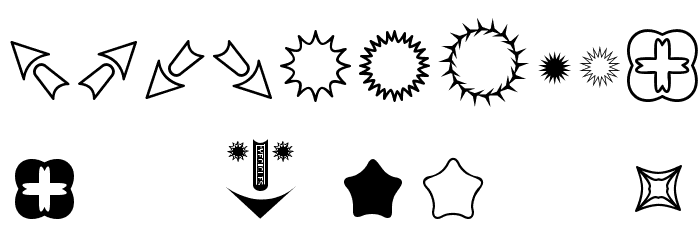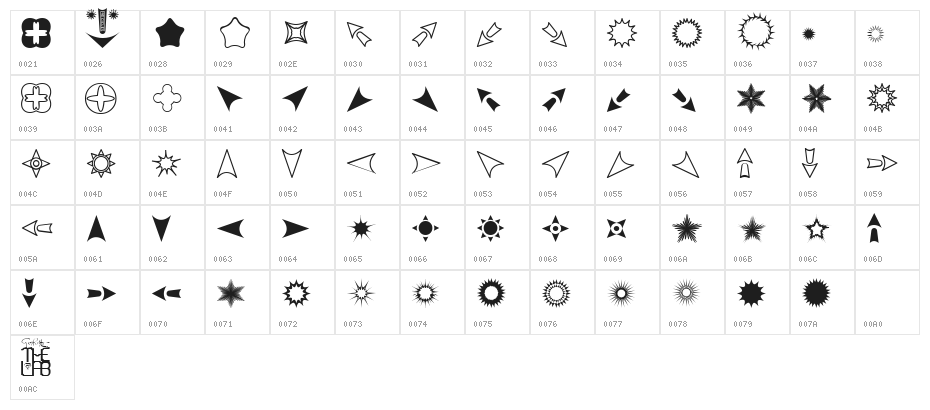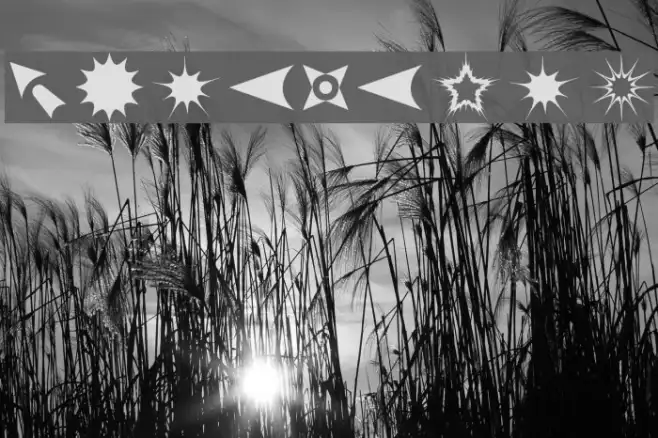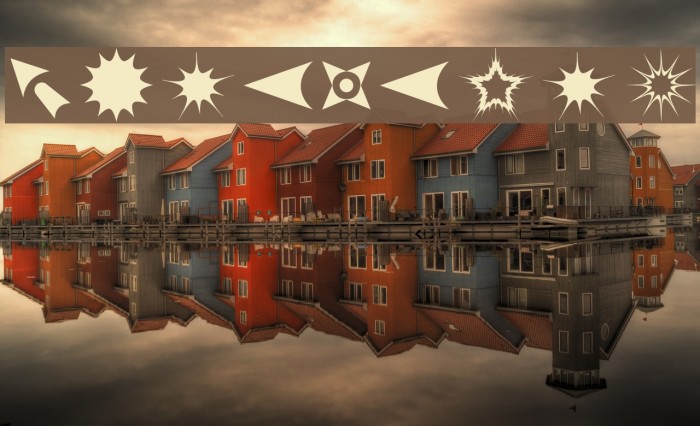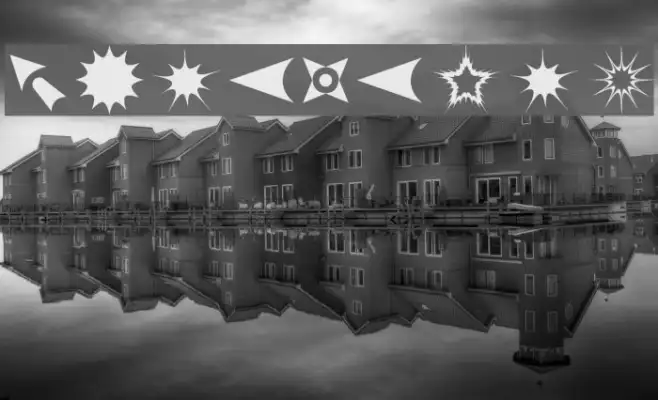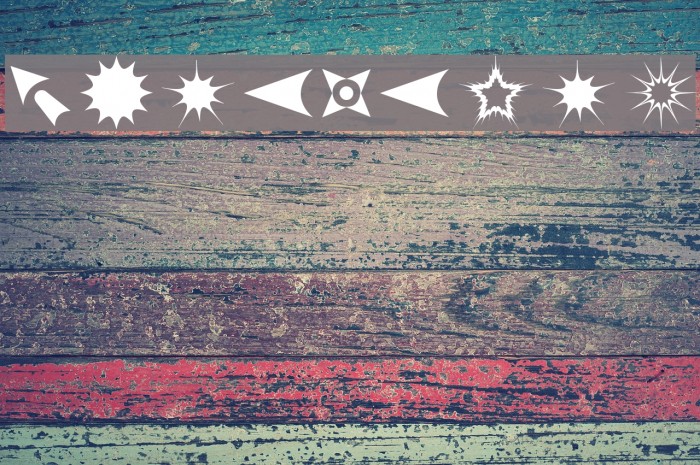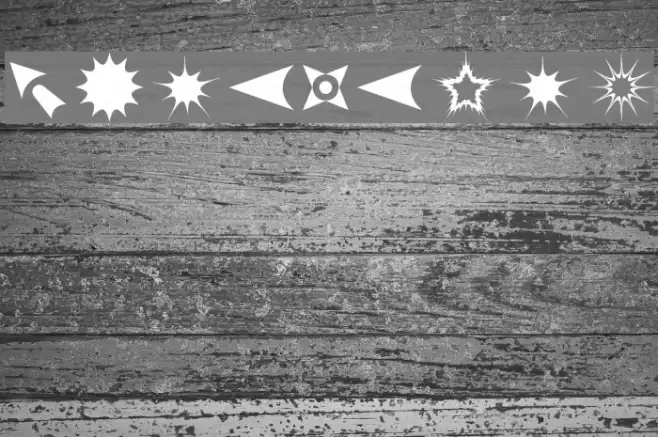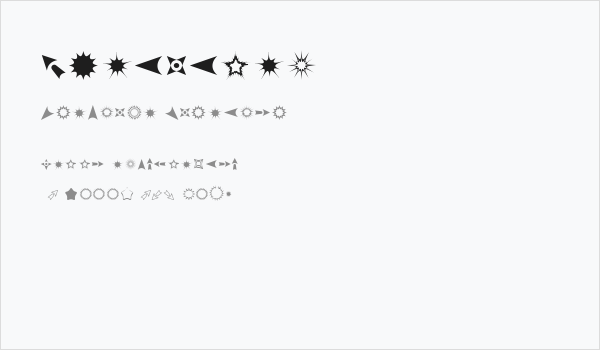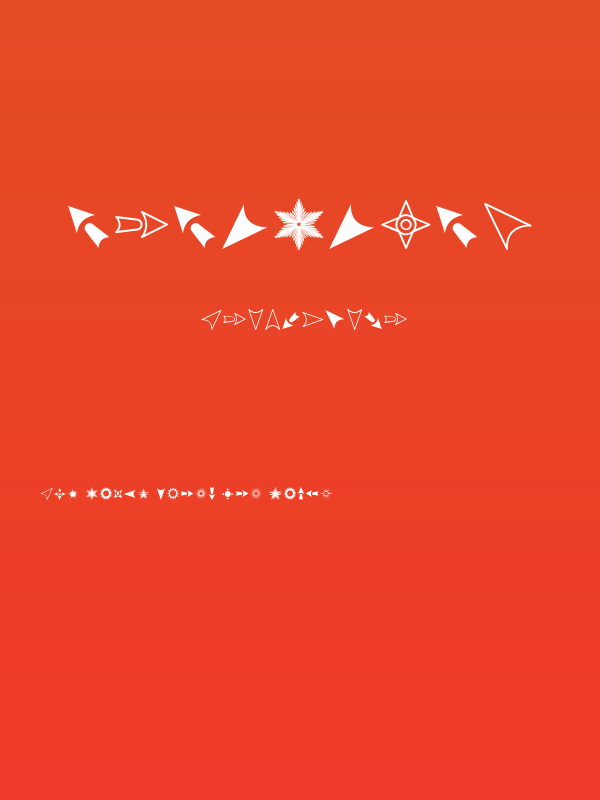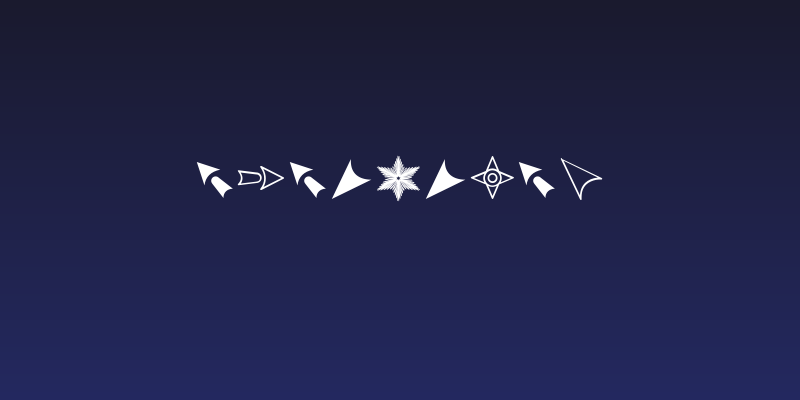
Eyecicles Font
A decorative dingbat or symbol set featuring abstract, spiky, and geometric shapes, including arrows, starbursts, and stylized icons. The glyphs are bold, high-contrast, and primarily composed of sharp points and symmetrical forms, making them visually striking and suitable for graphic embellishments.
Overall StyleDecorative, Abstract, Modern
Use CaseLogos, Icons, Decorative elements, Posters
Proposed ProjectsPosters, album covers, branding, digital stickers, web graphics, icon sets, and decorative dividers.